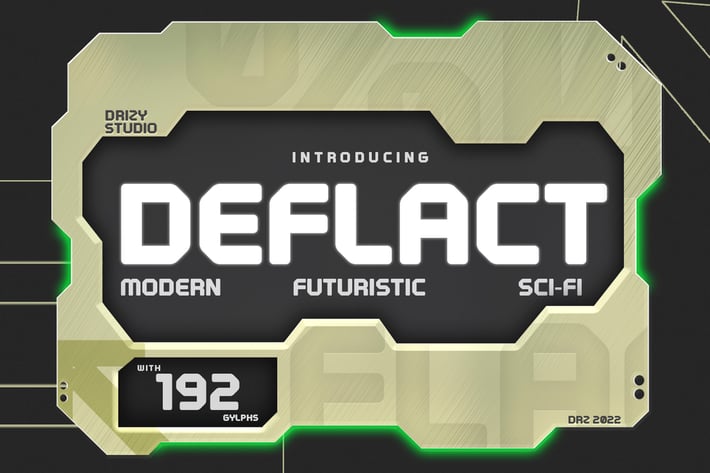
Deflact - Futuristic Sci-fi Font
Deflact is a Futuristic Sci-fi Font from Drizy studio. Offering all the basic styles you will need especially futuristic theme project.
Deflact Features:
All Caps
Multilinguals
Alternate